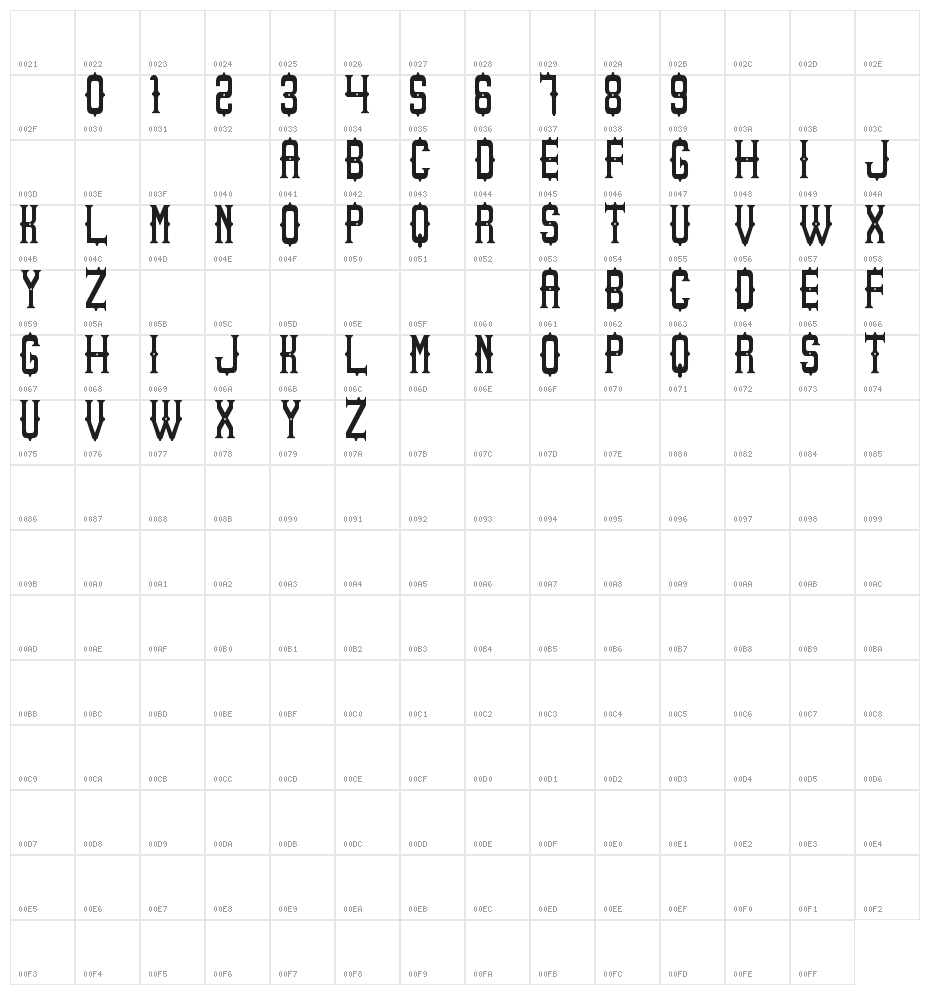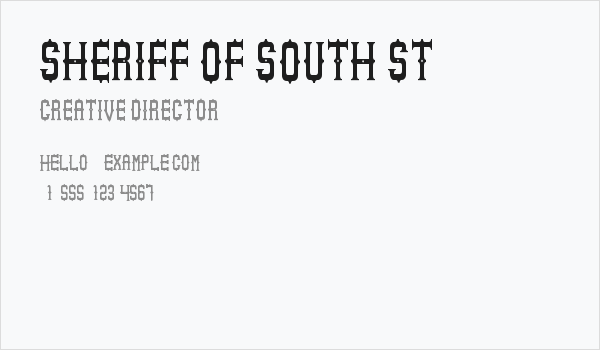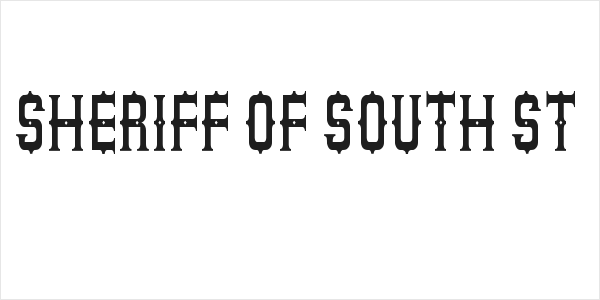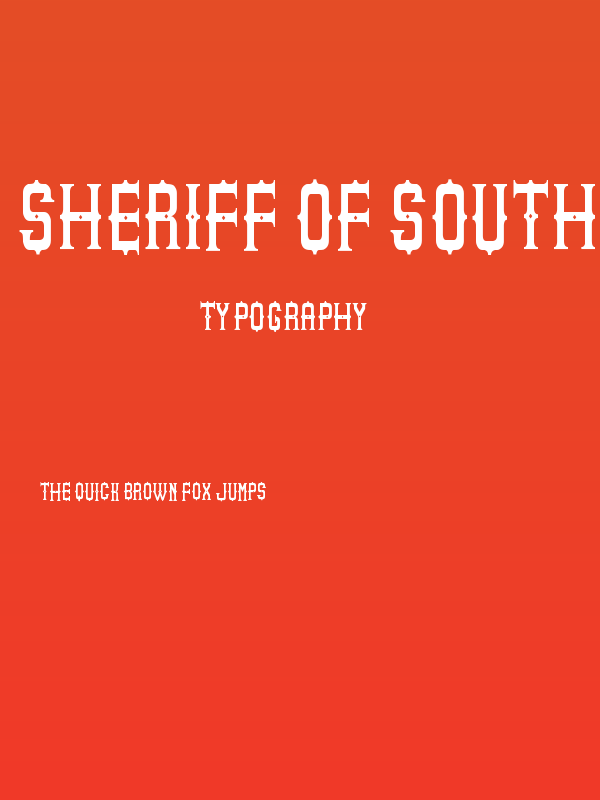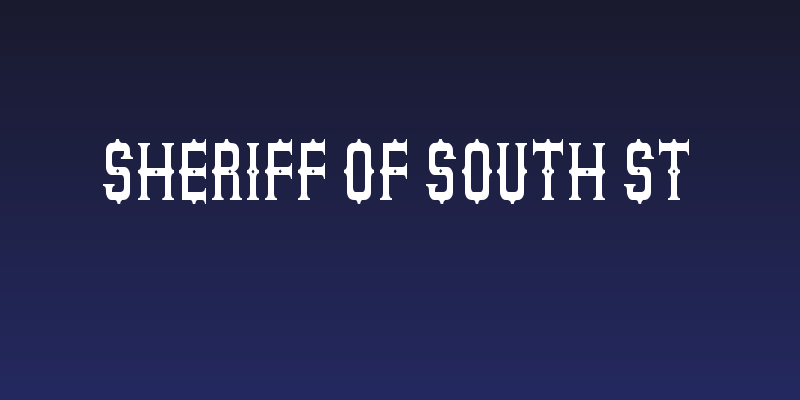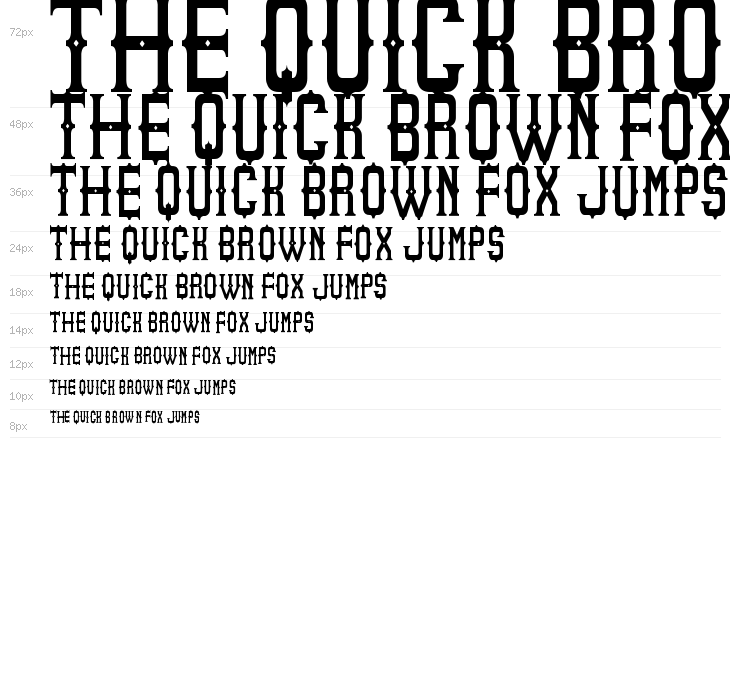
Sheriff of South St Font
Sheriff of South St Description
This font features a bold and decorative style reminiscent of the Old West, with strong, angular serifs and a distinct, rugged appearance. The characters are uniformly bold, with a consistent weight that emphasizes their robust design. The uppercase letters are particularly striking, with intricate detailing that adds a sense of historical flair. The numbers and special characters maintain this aesthetic, ensuring a cohesive look across all glyphs. The font's unique style makes it ideal for projects that require a vintage or Western theme, offering a distinctive and eye-catching appearance.